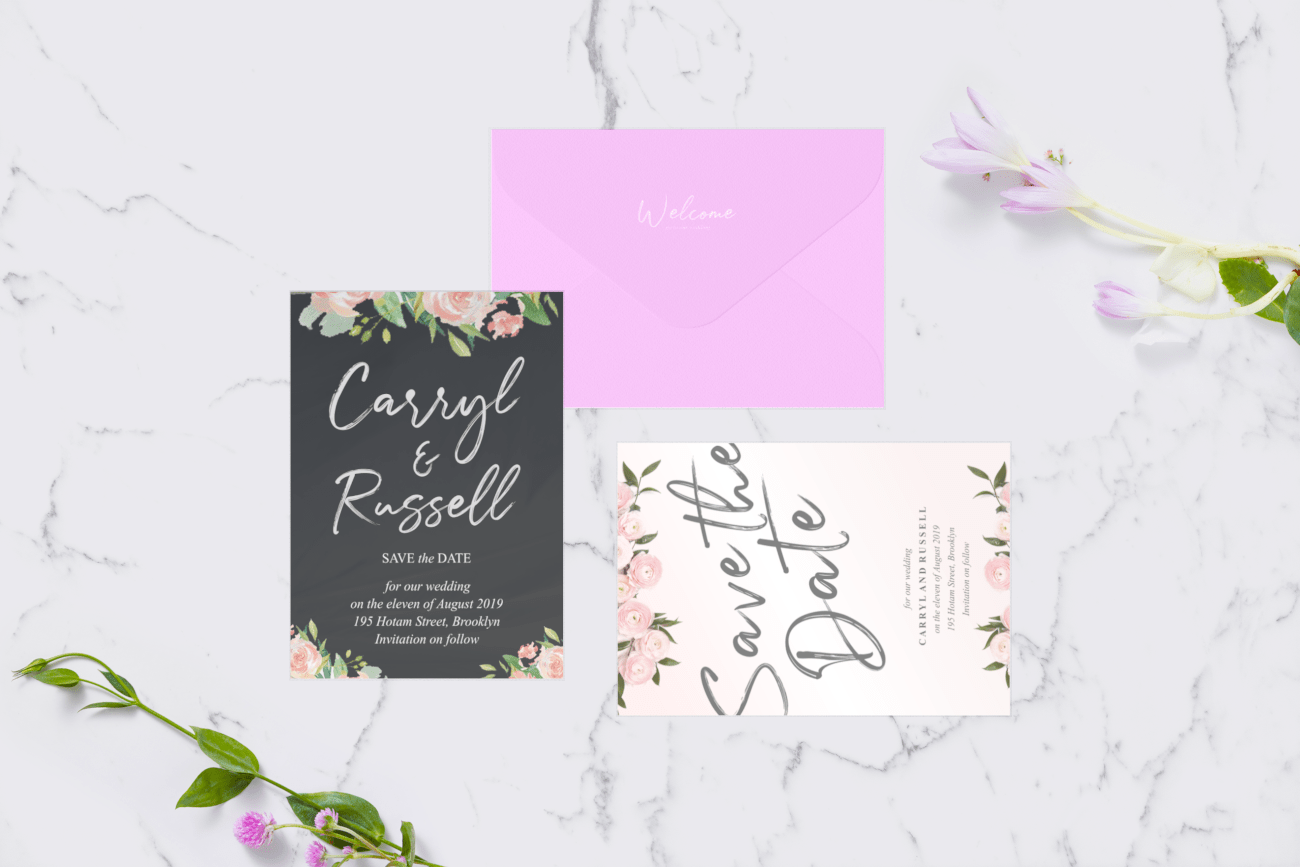
Julietta Messie Brush Script Font
The Julietta Messie is a beautiful brush font. It has an elegant feel and is perfect for adding a luxurious touch to your designs.
it’s perfect for branding, wedding invitations, poster designs, business cards, newsletters, stationary, logos, packaging, designs and more.